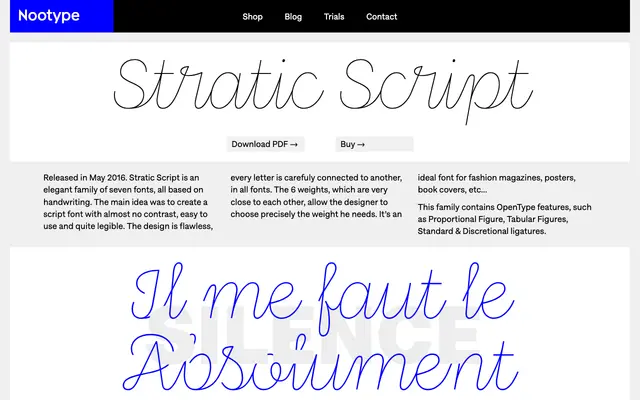
Stratic Script
A seven-weight connected script with near-zero stroke contrast, designed for legibility in fashion and editorial contexts.
Released in 2016, this script family draws from handwriting while keeping stroke contrast to a minimum, giving it a cleaner, more contemporary feel than many calligraphic alternatives. Seven weights run from Hairline through to a Cut variant, positioned close together so designers can pick precisely the right heaviness for a given application. OpenType features including proportional and tabular figures and standard and discretionary ligatures support refined typesetting across fashion, publishing and poster work.
Classified as script due to its handwriting origins and connected letterforms. The near-absence of stroke contrast and the careful letter connections place it in the handwriting script subcategory rather than calligraphic or brush script.